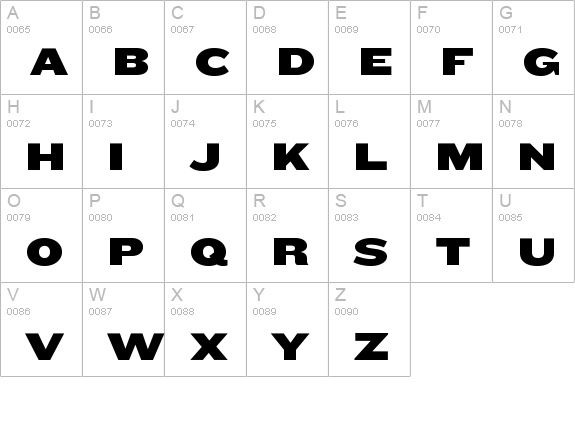
Knockout-HTF74-FullSumo Font Details
Introducing Knockout-HTF74-FullSumo font, a bold and dynamic typeface designed to make a statement. This font exudes strength and power with its thick, heavy lines and commanding presence on the page. Perfect for headlines, banners, and attention-grabbing designs, Knockout-HTF74-FullSumo demands to be noticed. What's even better is that Knockout-HTF74-FullSumo font is completely free to download at FontsMarket.com. Now, you can access this impressive typeface without any cost, making it a valuable addition to your font collection. Embrace the boldness of Knockout-HTF74-FullSumo and elevate your designs with its impactful style. Download it today and unleash the full potential of this striking font.